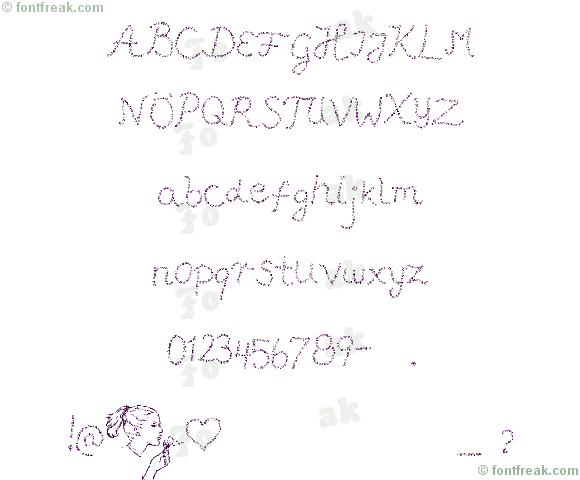
Pffft
Introducing the Pffft font by Anke Arnold, a delightful display typeface that embodies a playful, whimsical style. This font, categorized as a decorative typeface, stands out with its unique, hand-drawn aesthetic that captures attention effortlessly. Characterized by an irregular stroke weight, Pffft features charming inconsistencies that add a sense of personality and flair to any text. The spacing is thoughtfully designed, allowing for a balanced flow that enhances readability while maintaining its artistic charm.
The Pffft font is ideal for a variety of creative projects. Its playful nature makes it perfect for wedding invitations, where couples can express their individuality and joy. Additionally, this font can be used effectively in children’s book covers, appealing to young readers and their parents alike. Restaurant menus can also benefit from Pffft’s inviting style, helping to create a warm and friendly atmosphere. Graphic designers will find it a versatile choice for promotional materials, as it draws attention without overpowering the message. Content creators can leverage Pffft for social media graphics, adding a touch of whimsy to their posts.
The target audience for this font includes graphic designers, small business owners, and anyone looking to infuse a bit of fun into their projects. Whether you’re crafting a logo, designing a flyer, or creating eye-catching digital content, Pffft provides an engaging option that resonates with viewers.
What sets the Pffft font apart is its ability to convey a sense of joy and creativity through its distinctive style. With its free download available, designers and creators can easily incorporate this unique typeface into their work, making it a fantastic addition to any font library. Embrace the charm of the Pffft font and let your designs come to life.